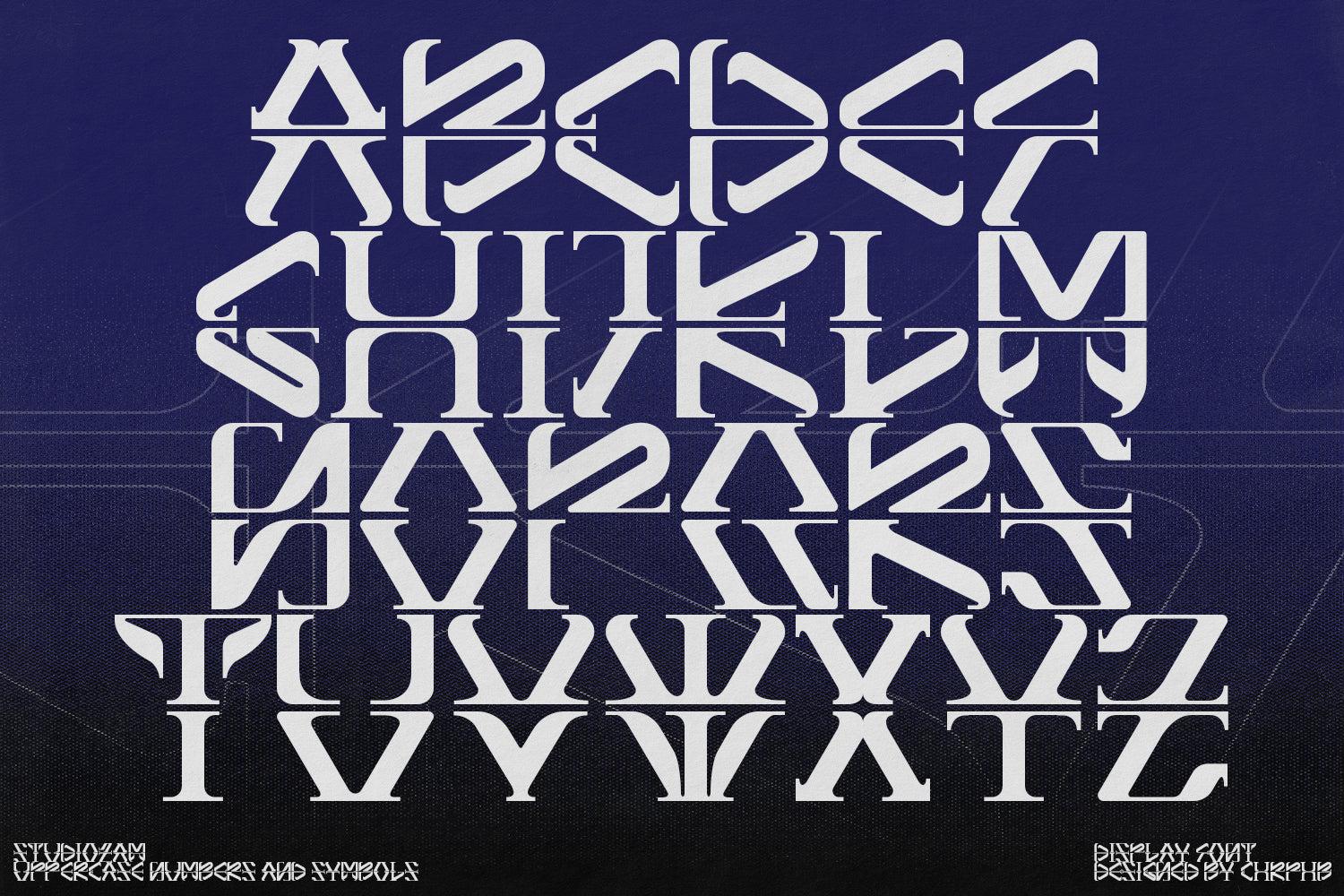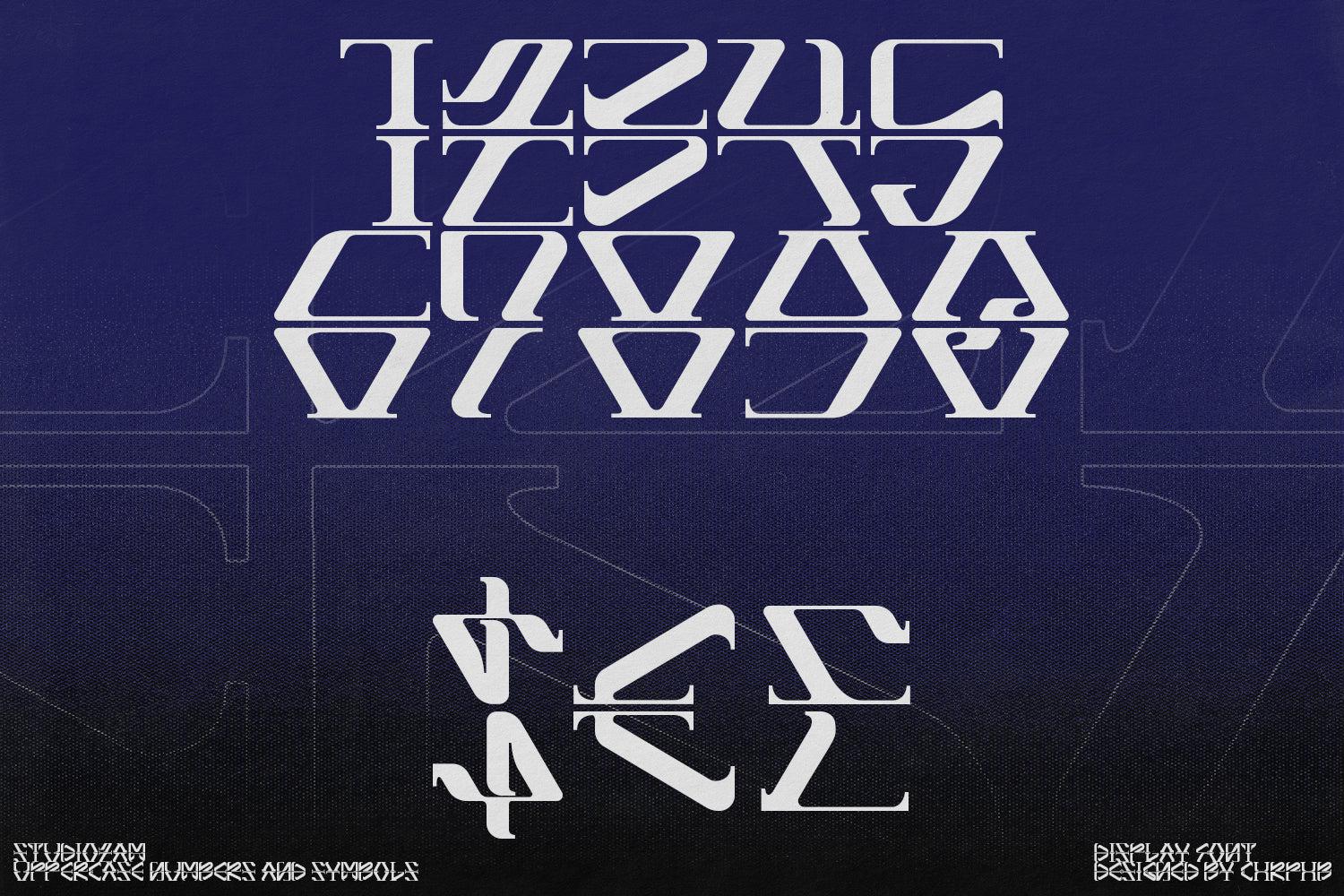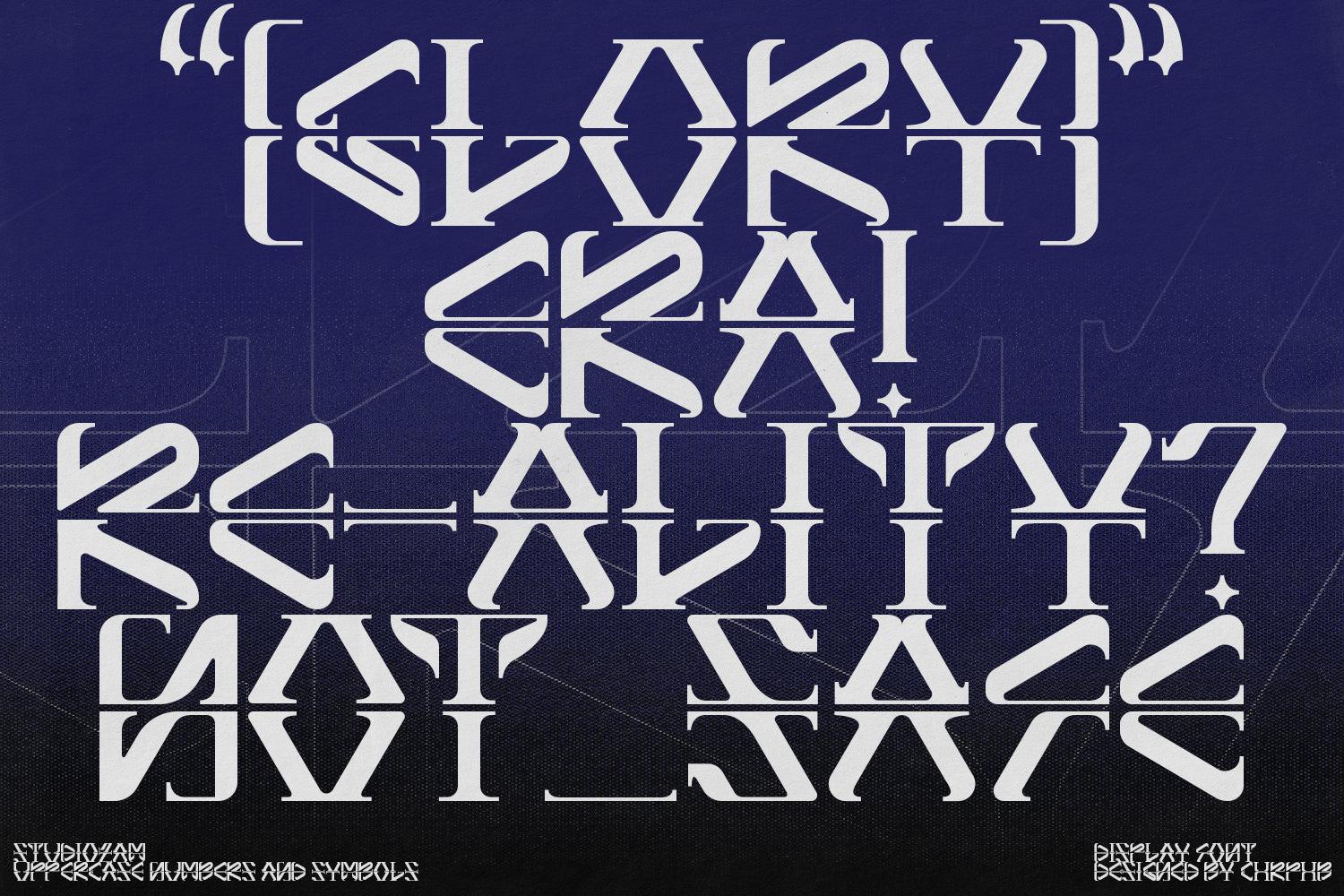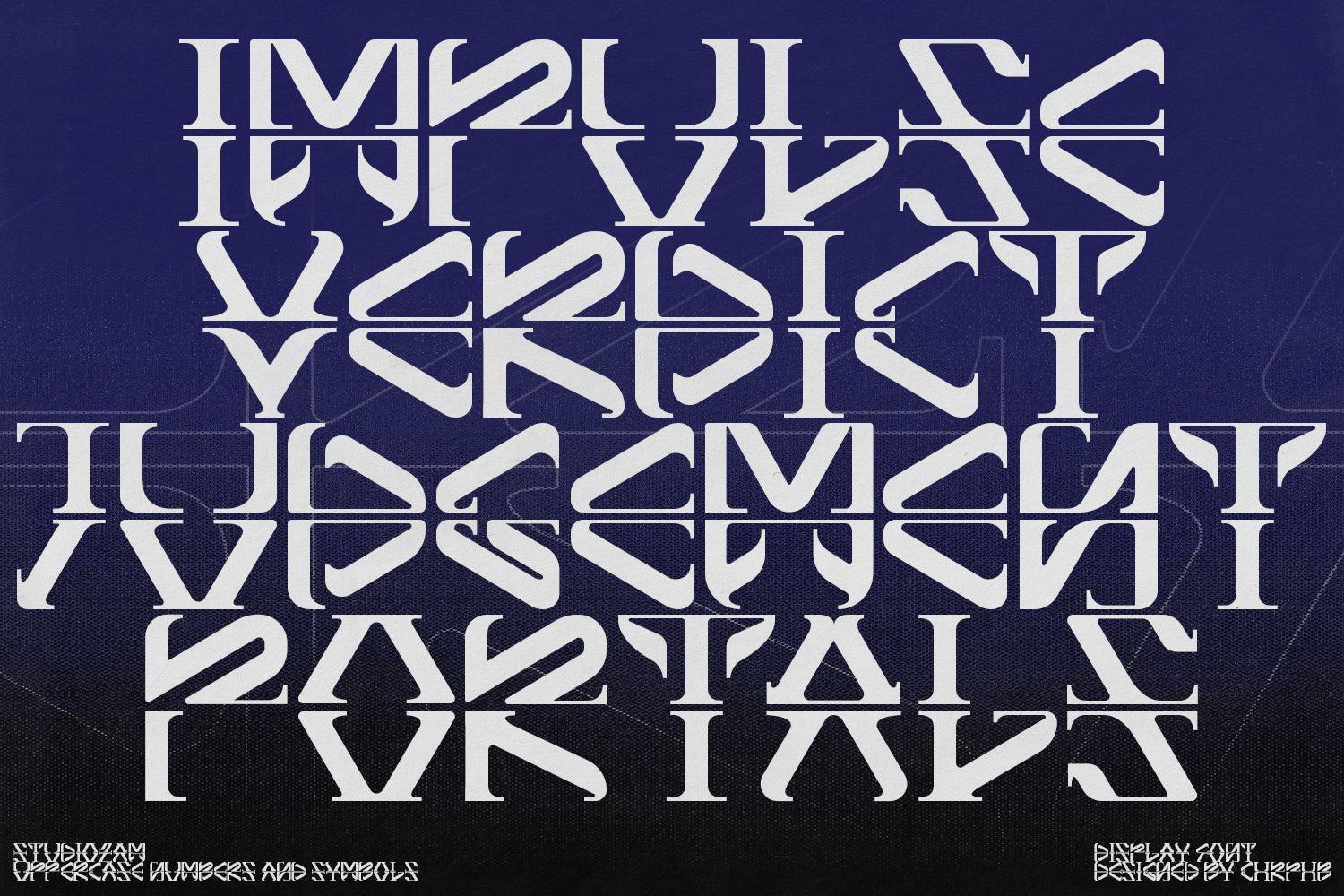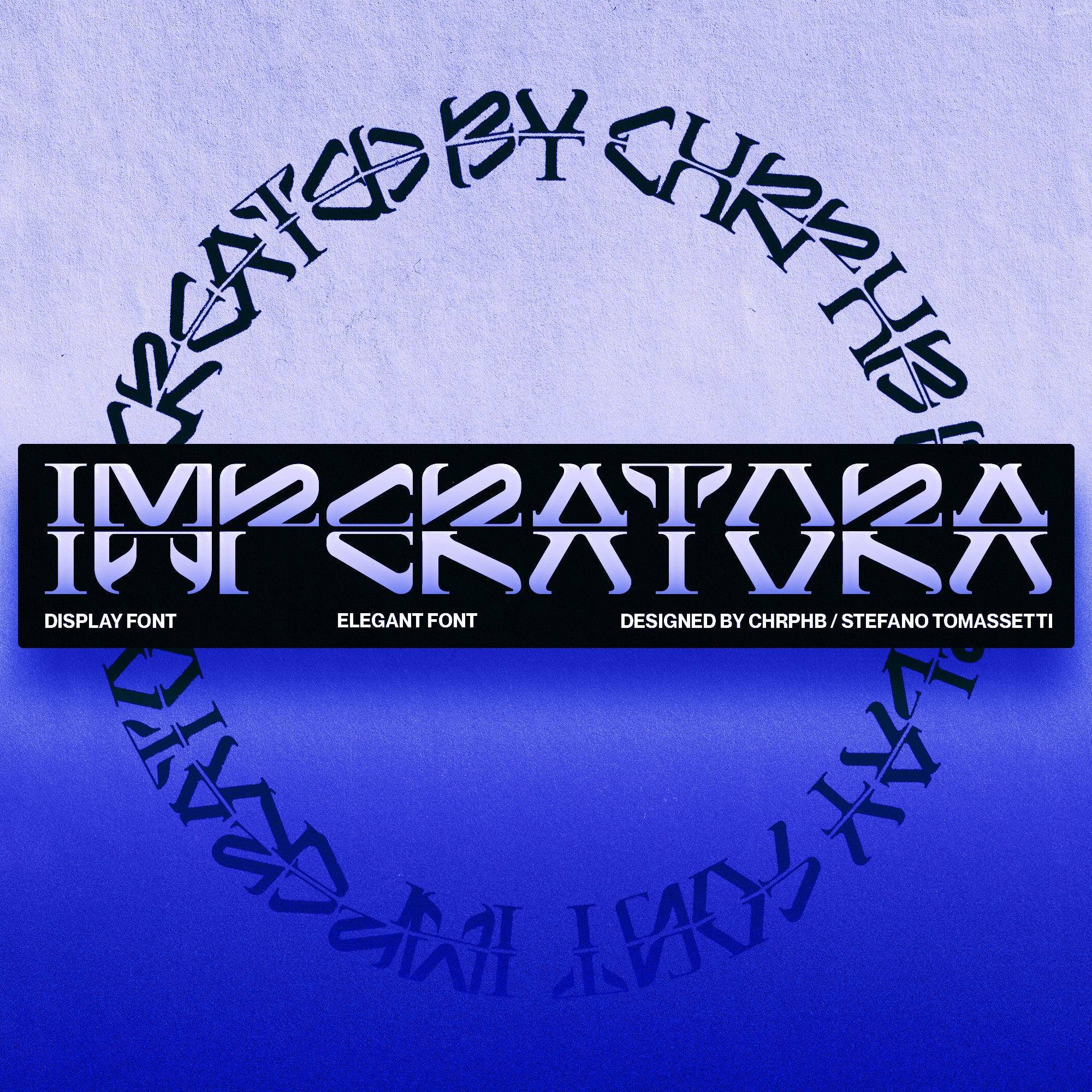
Imperatora Typeface
The Imperatora Typeface is a unique, elegant, and mysterious font supplied in .otf format. It is a luxury display font that combines elements of cyberpunk and futuristic aesthetics.
Ideal for elegant and luxurious graphic design projects. Perfect for logotypes, intriguing posters, and evocative album covers, ensuring a captivating and stylish aesthetic that stands out.